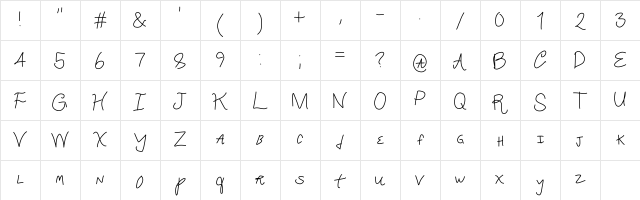
Crappy Font Medium
Design Context for Crappy Font
Crappy Font is a composed and adaptable typeface that performs quietly and consistently across a wide range of design contexts.